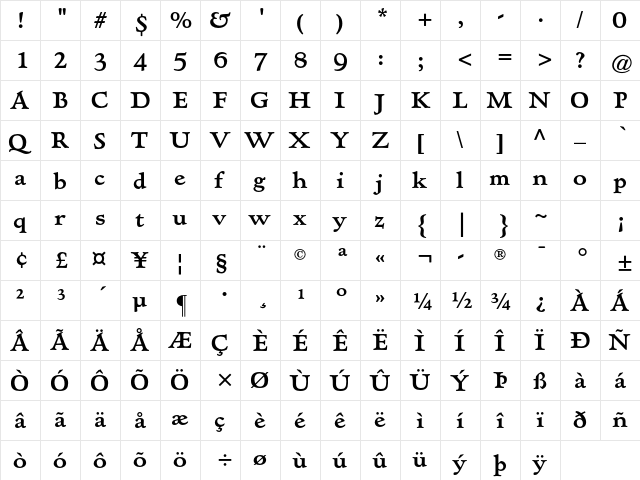
Hadriano Std Bold
| Designer | Frederic W. Goudy |
Hadriano Std is a composed and adaptable typeface that performs quietly and consistently across a wide range of design contexts. The heavy weight commands attention and anchors typographic hierarchies.
Pro Tip: Pair Hadriano Std with a font of contrasting weight or personality to build a more expressive typographic hierarchy.